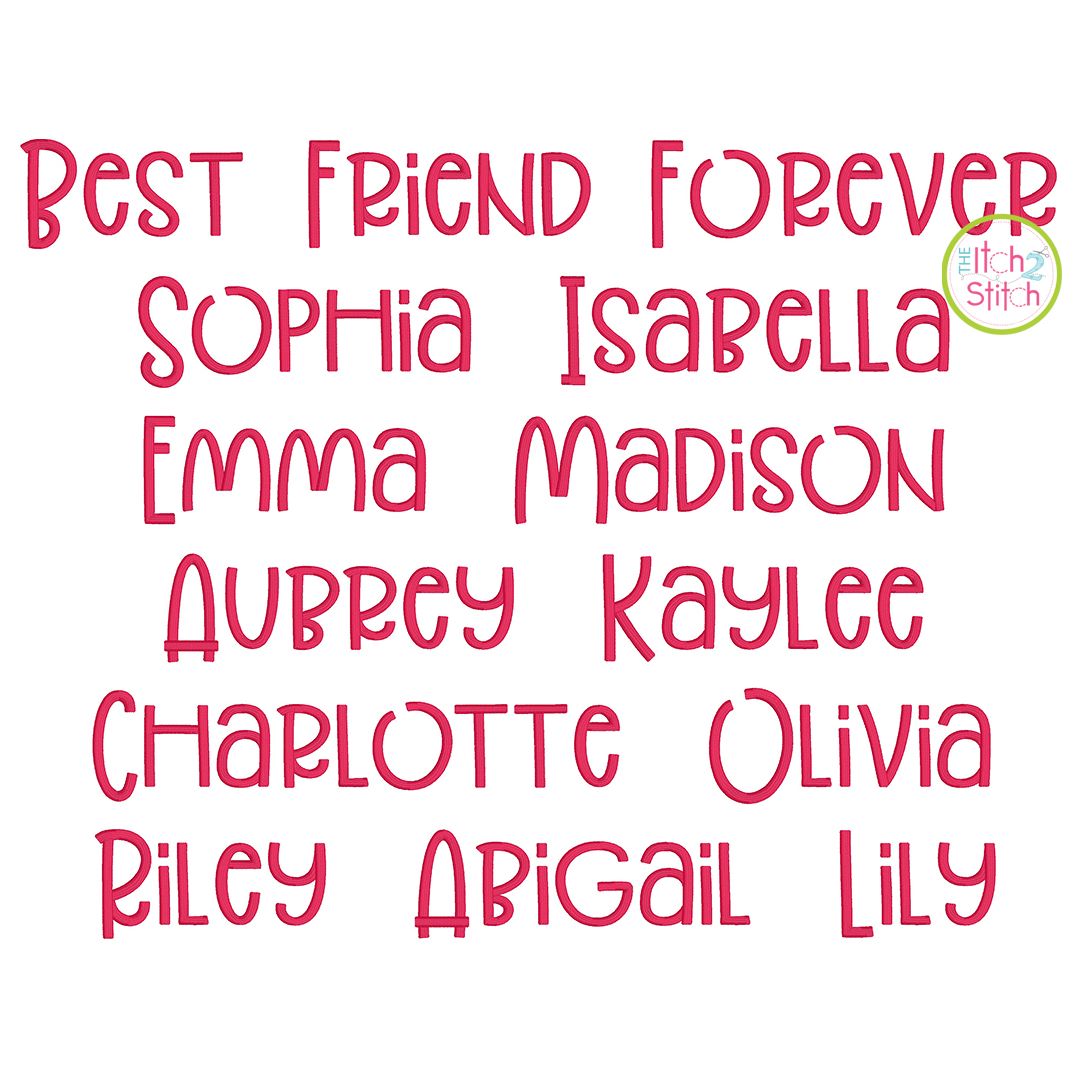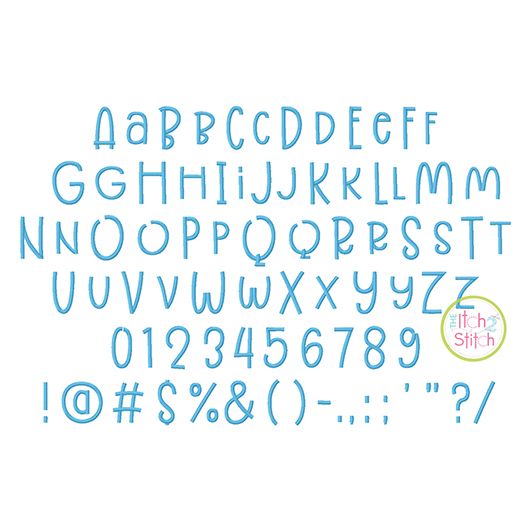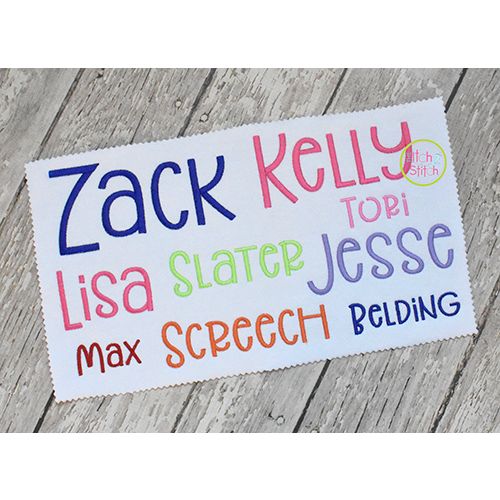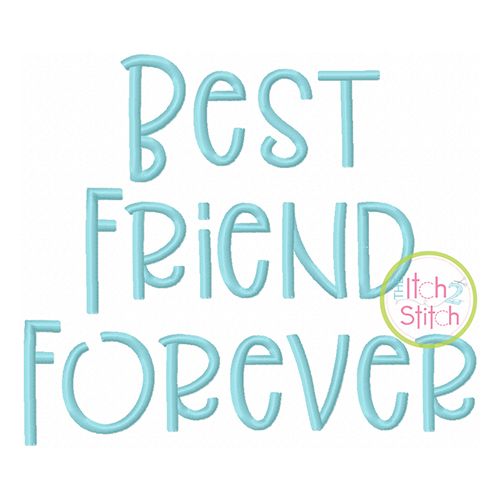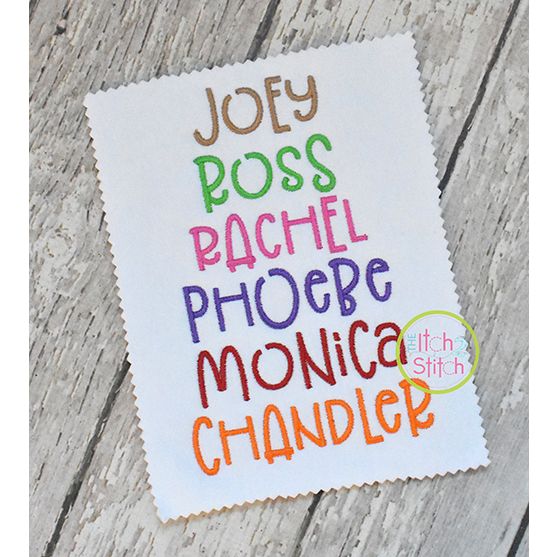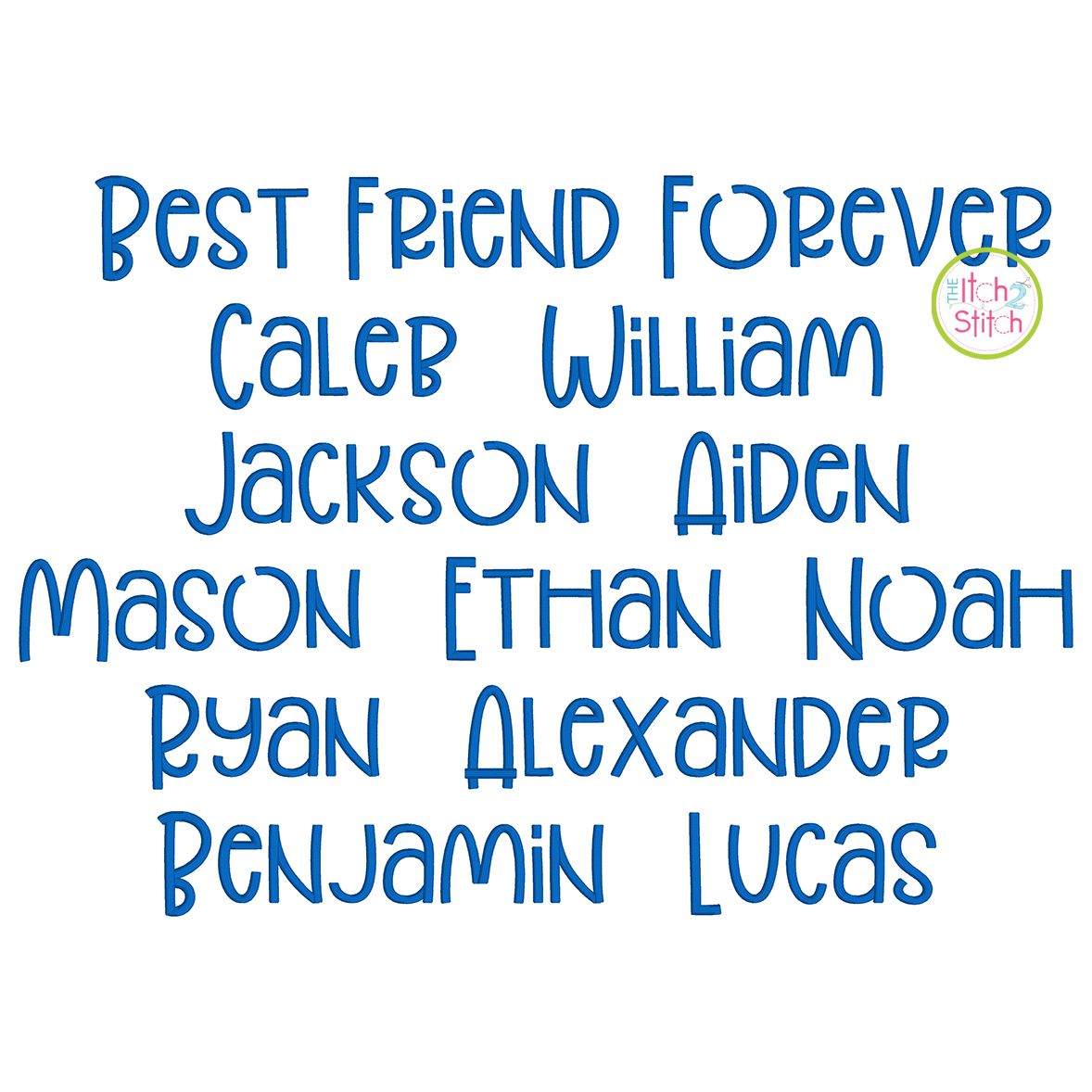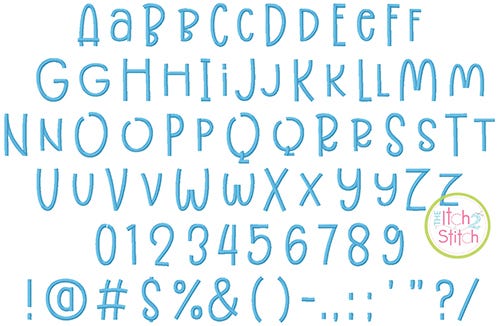
Best Friend Forever Satin Stitch Embroidery Font
You will receive all Aa-Zz letters, numbers, and partial punctuation (79 files) in five sizes. To achieve the look of our samples, use your software to align the center of the letters, not the bottom. You can mix and match cases to create a fun look!